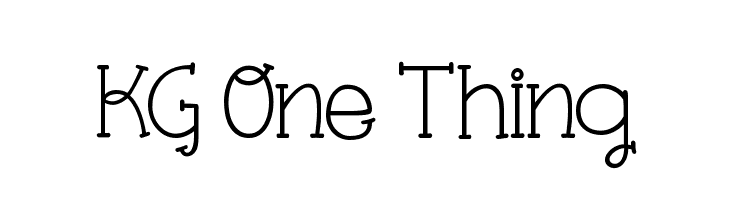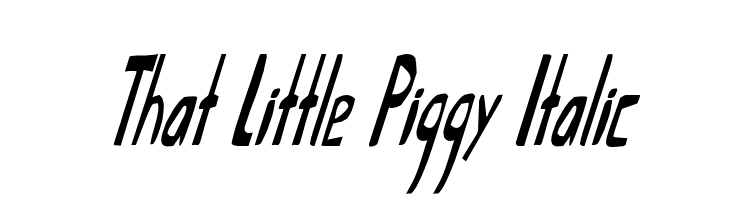
( Fonts by www.kimberlygeswein.com - Kimberly Geswein )
A playful and whimsical font with rounded and angular elements, ideal for informal projects.
A modern italic font with clean lines and a dynamic slant.